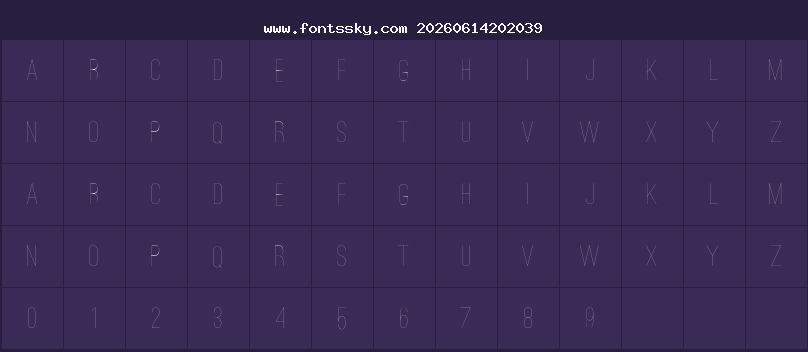
Ostrich Sans Light Preview
• Font Name: Ostrich Sans Light
• Full Font Name: Ostrich Sans Light
• Designer: Tyler Finck
• Manufacturer: The League of Moveable Type
About Ostrich Sans Light.otf
Ostrich Sans Light.otf is a modern, elegant sans-serif font designed for ultimate readability and visual harmony. Perfect for branding, headlines, web design, and print materials.